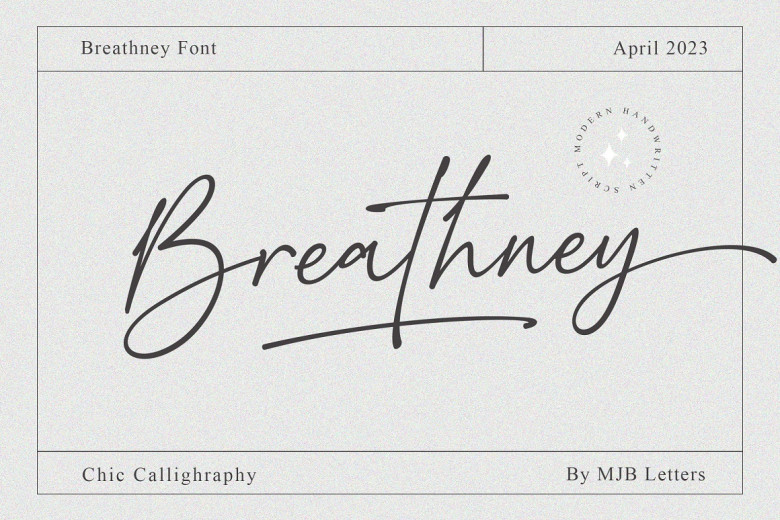
Breathney Font
Breathney is an elegant naturally written typeface with soft lines and charming curves that evoke the distinctness of handwriting, adding personal touches to graphic design. Ideal for feminine, warm designs such as wedding invitations posters logos and invitations, Breathney adds warmth and authenticity while conveying personal messages through its soft style that conveys its distinctness of handwriting.
Breathney Handwritten Script Font